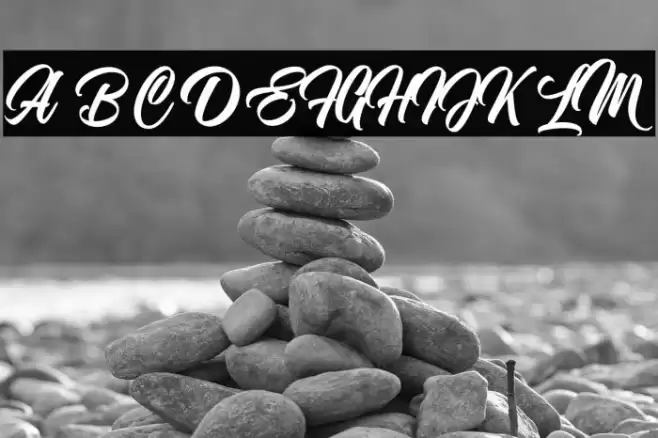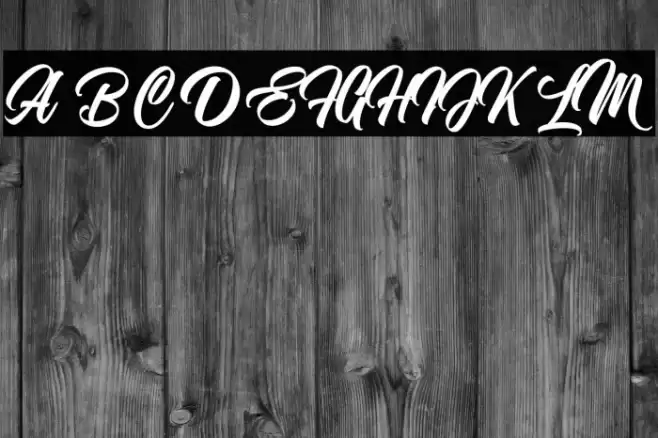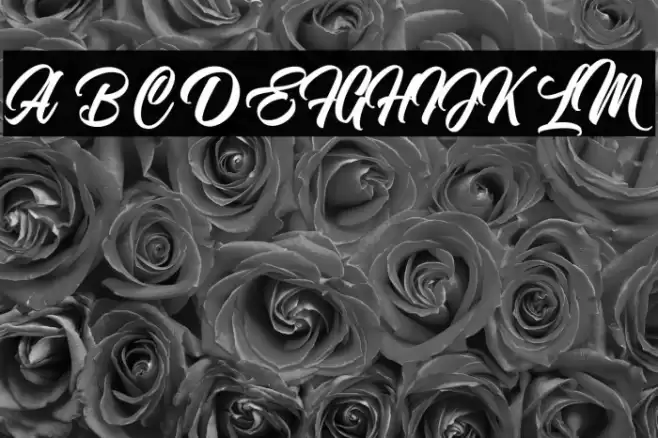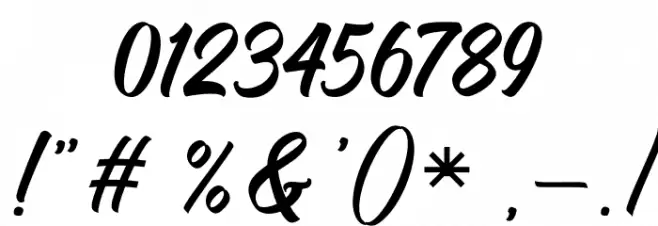
NostalgicScript Font
NostalgicScript Description
This font exudes a classic and elegant script style, characterized by its flowing, cursive letters that mimic the fluidity of handwriting. The uppercase letters are bold and sweeping, with intricate loops and flourishes that add a touch of sophistication. The lowercase letters maintain a consistent style, with smooth curves and a slightly slanted orientation that enhances readability. The numerals are equally stylish, maintaining the script's overall aesthetic. Special characters are thoughtfully designed, integrating seamlessly with the rest of the font. This font is perfect for projects that require a personal, elegant touch, such as invitations, greeting cards, and branding materials.
A classic, elegant script font with flowing, cursive letters and intricate flourishes from Uncategorized fonts.
- Font: NostalgicScript
- Proposed Projects: Ideal for wedding invitations, greeting cards, branding, and elegant signage.
- Overall Style: Classic
- Use Case: Headlines, Logos, Invitations